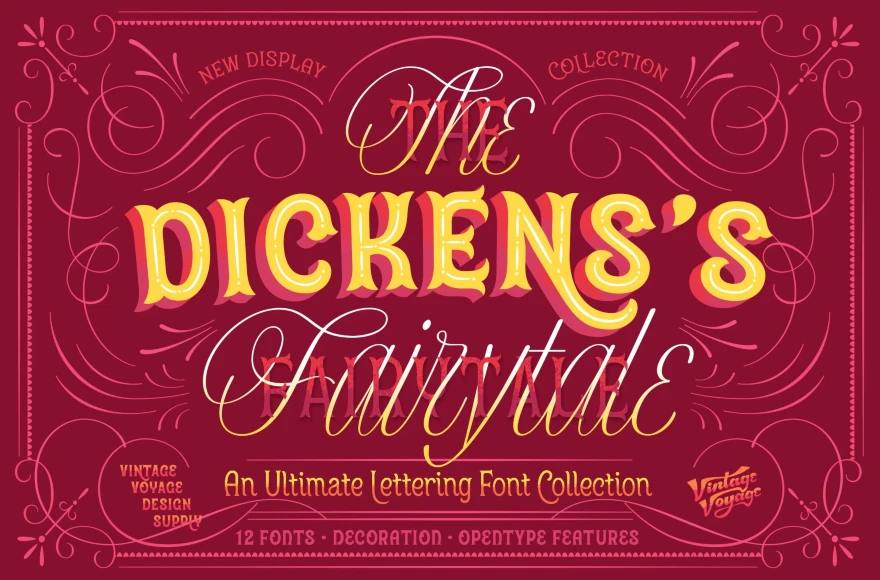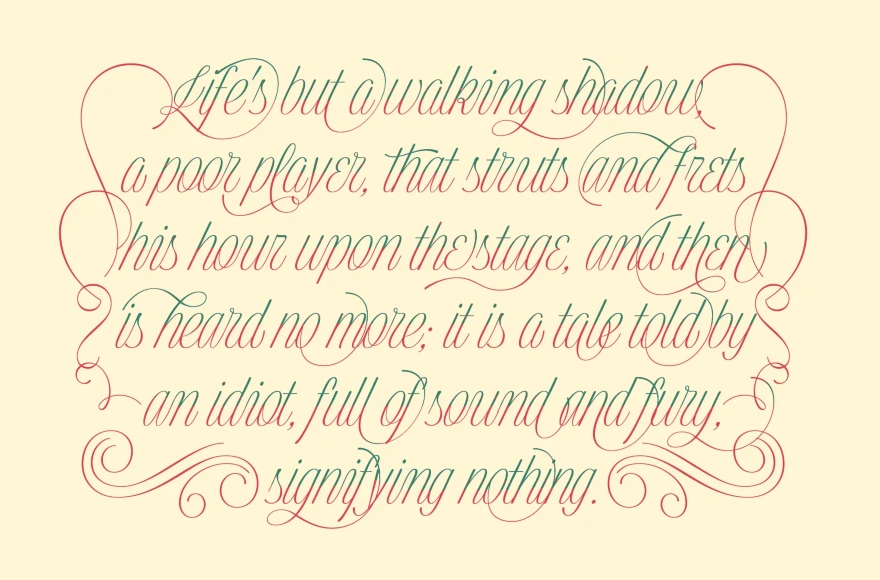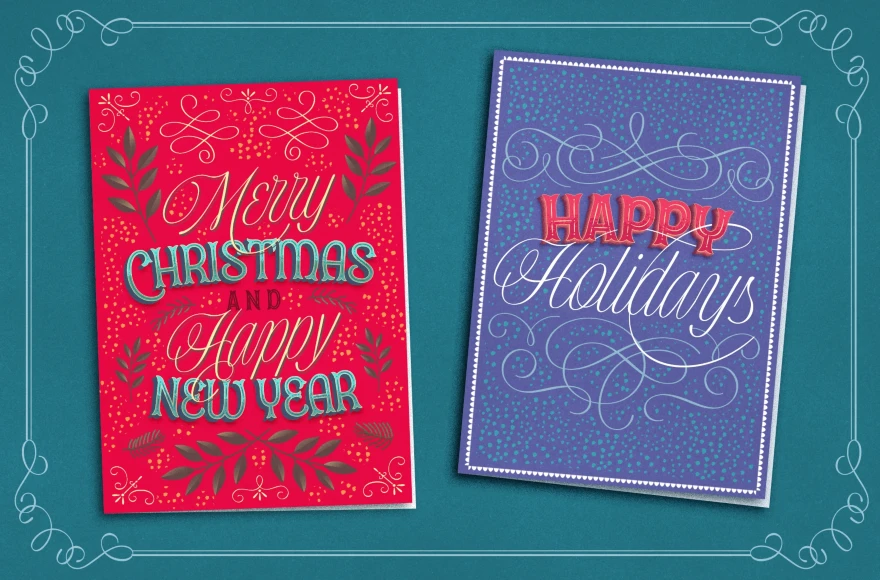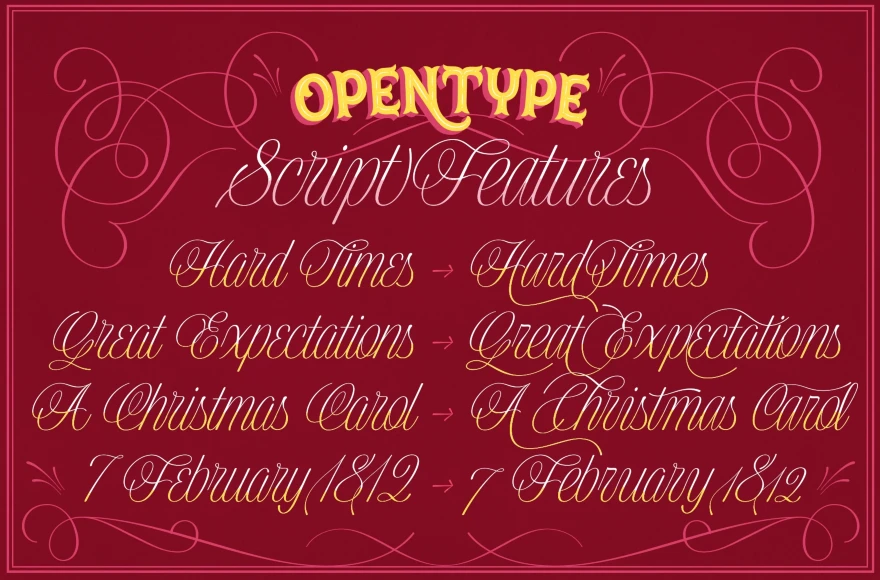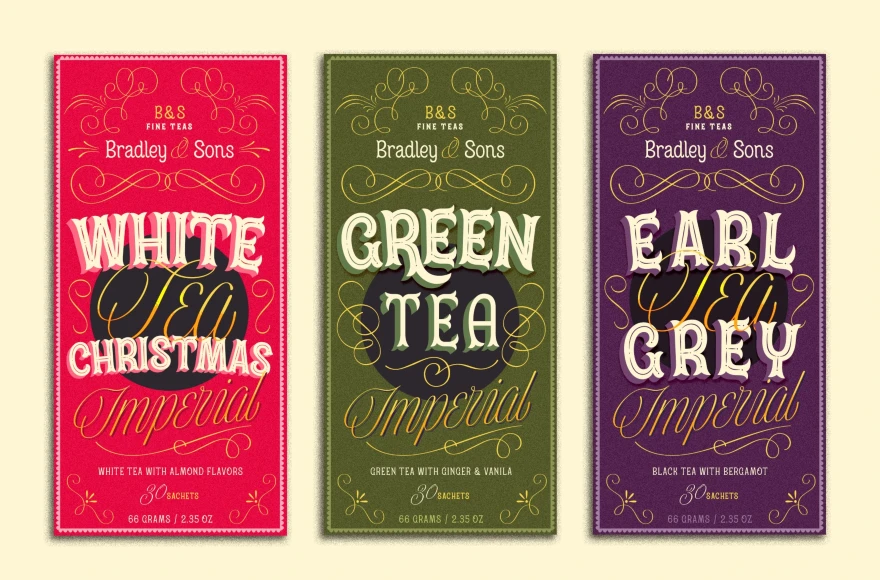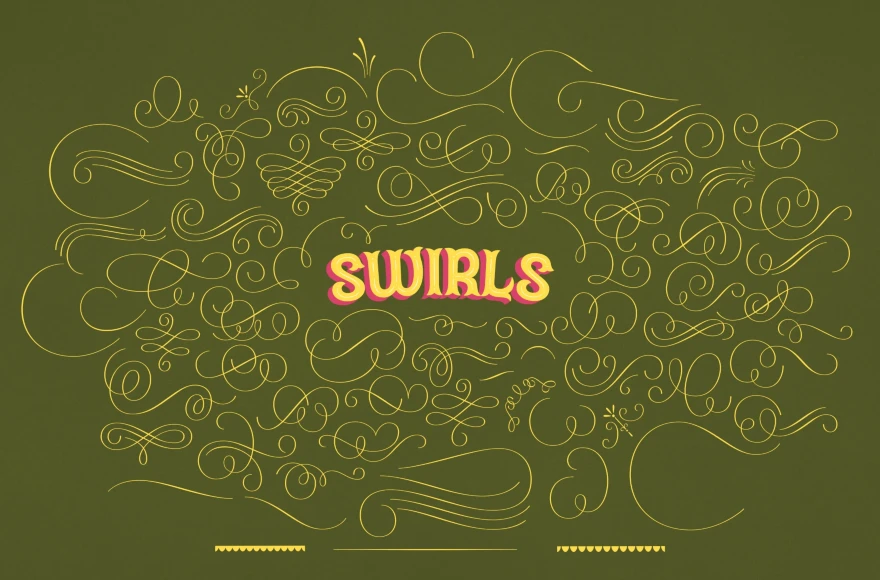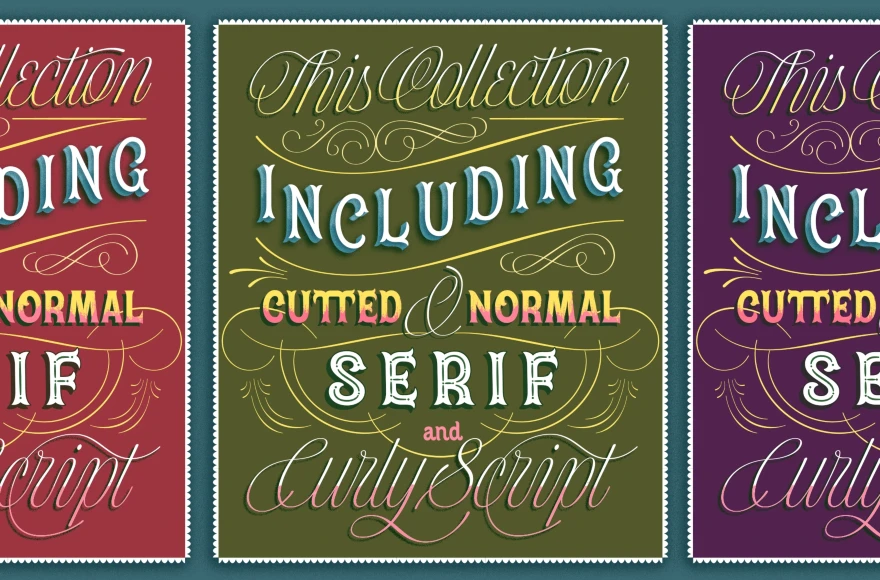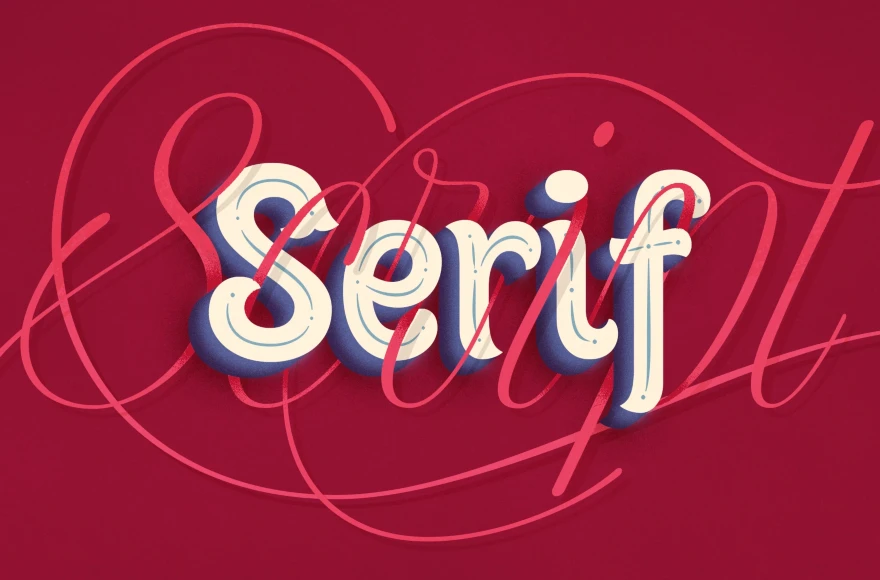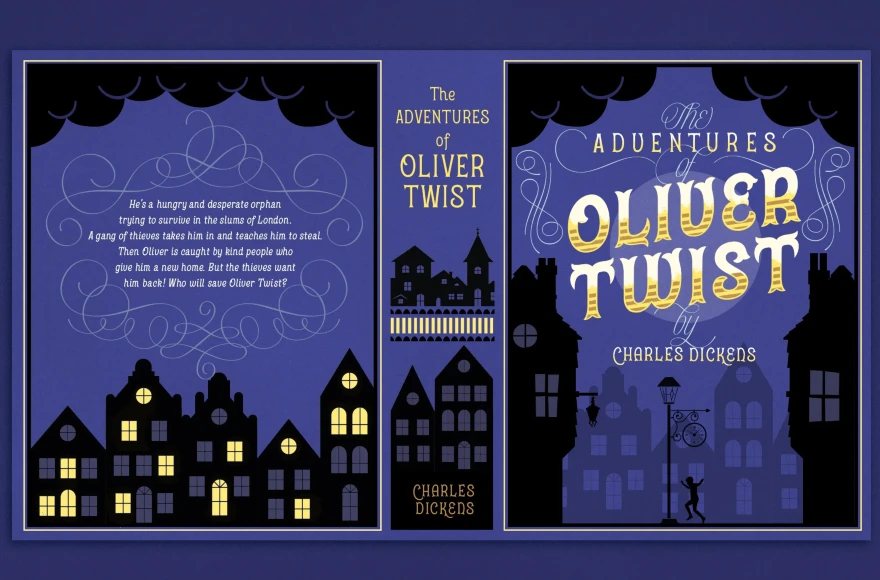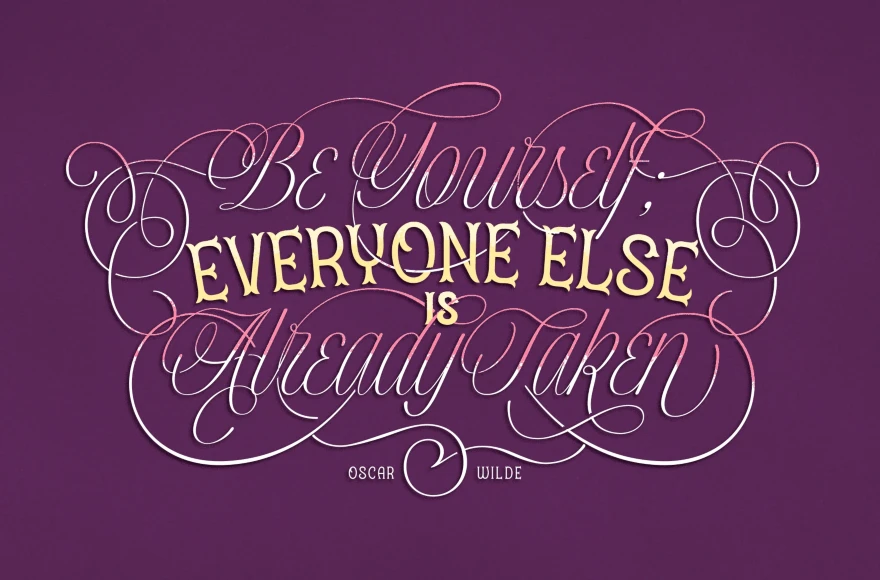
Dickens Tale
Vintage Voyage Design’s Dickens Tale Script is a classic design evoking copperplate engravings and Victorian calling cards. With swashes and alternates ready, this aptly named typeface evokes ghosts of Christmas past and the season’s generosity of spirit. Dickens Tale Script is a splendid choice for branding projects, holiday marketing campaigns, advertising, package design, logo design, cards and invitations, poster design, films and books, social media posts, and more.